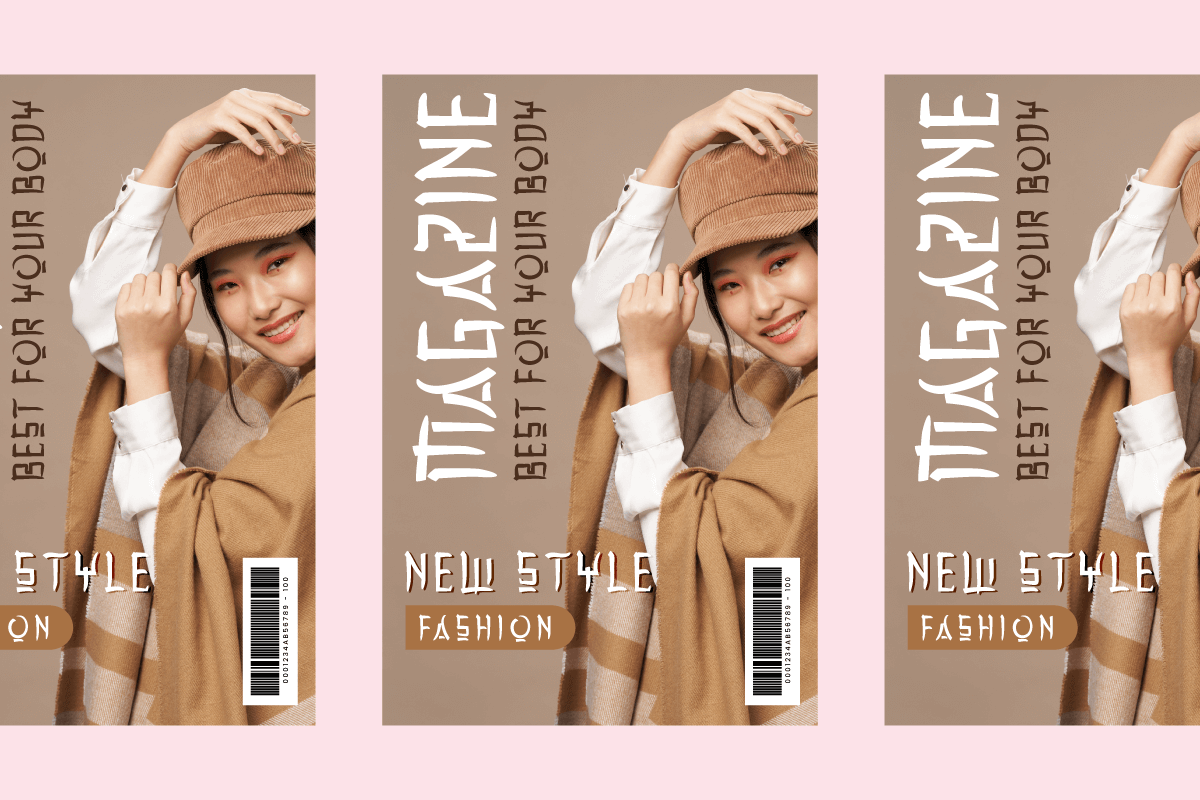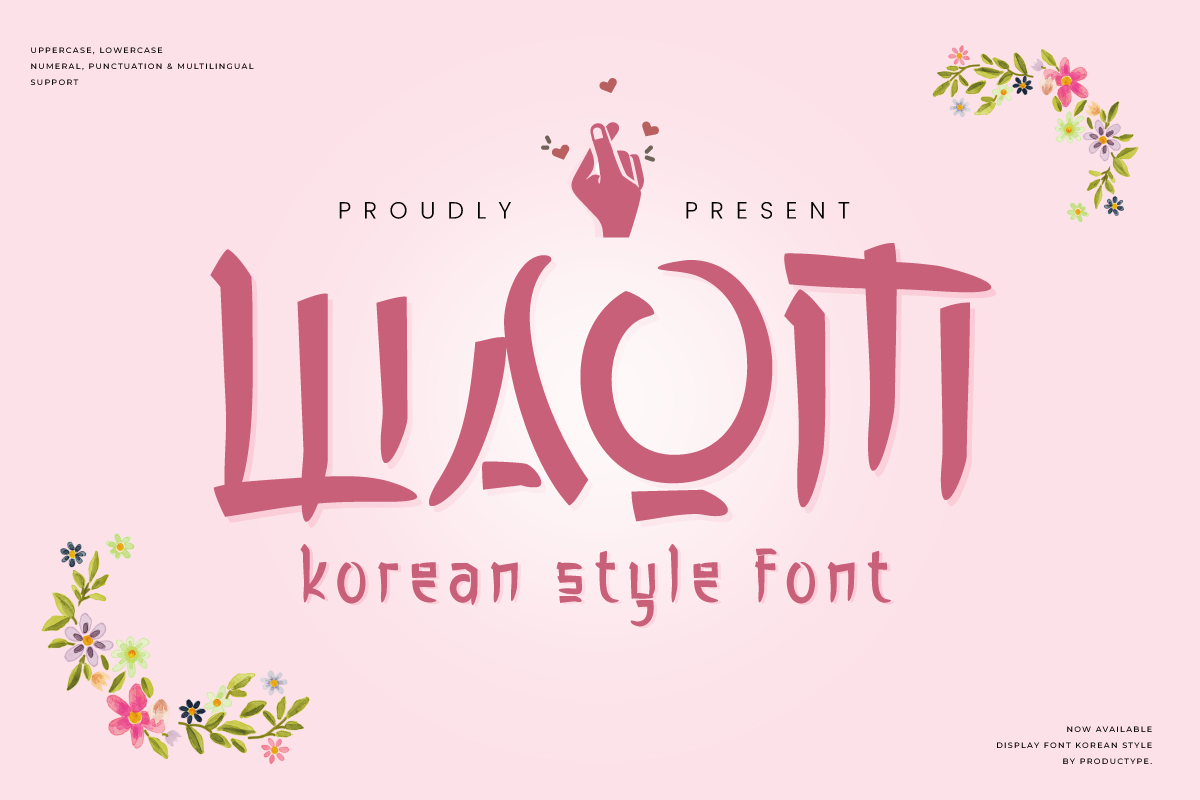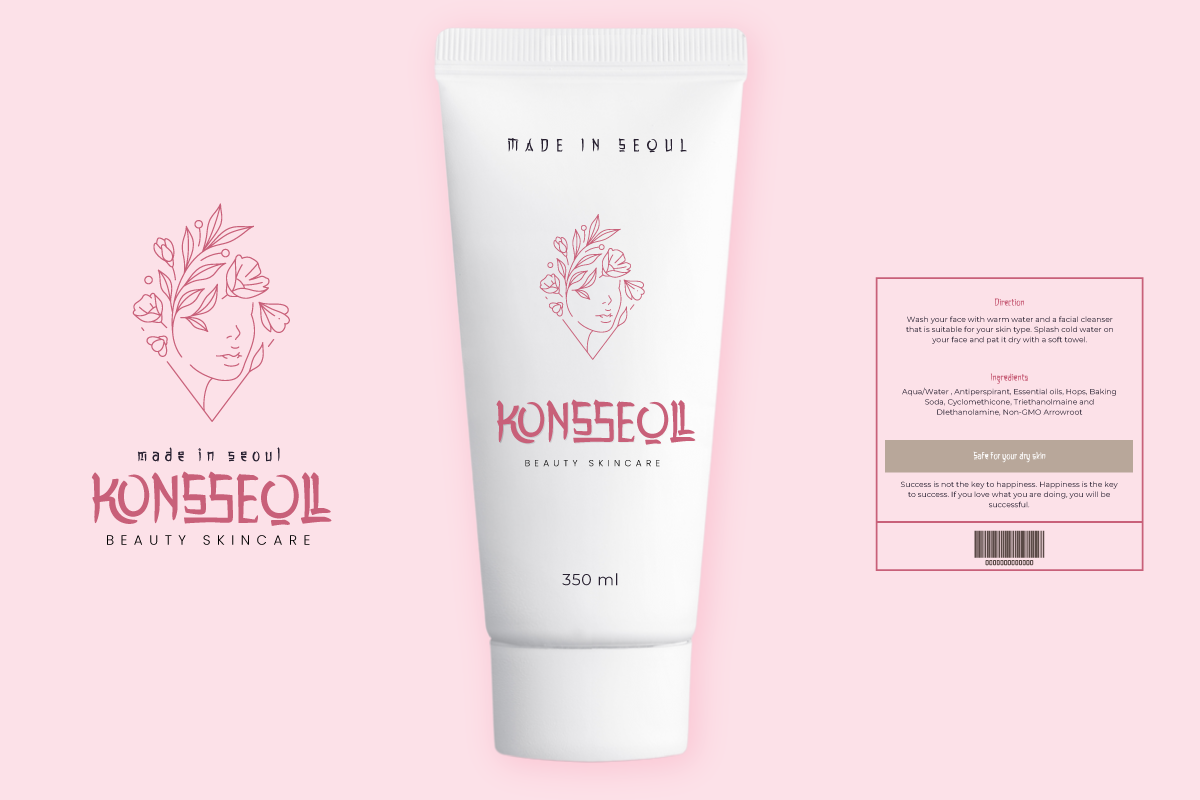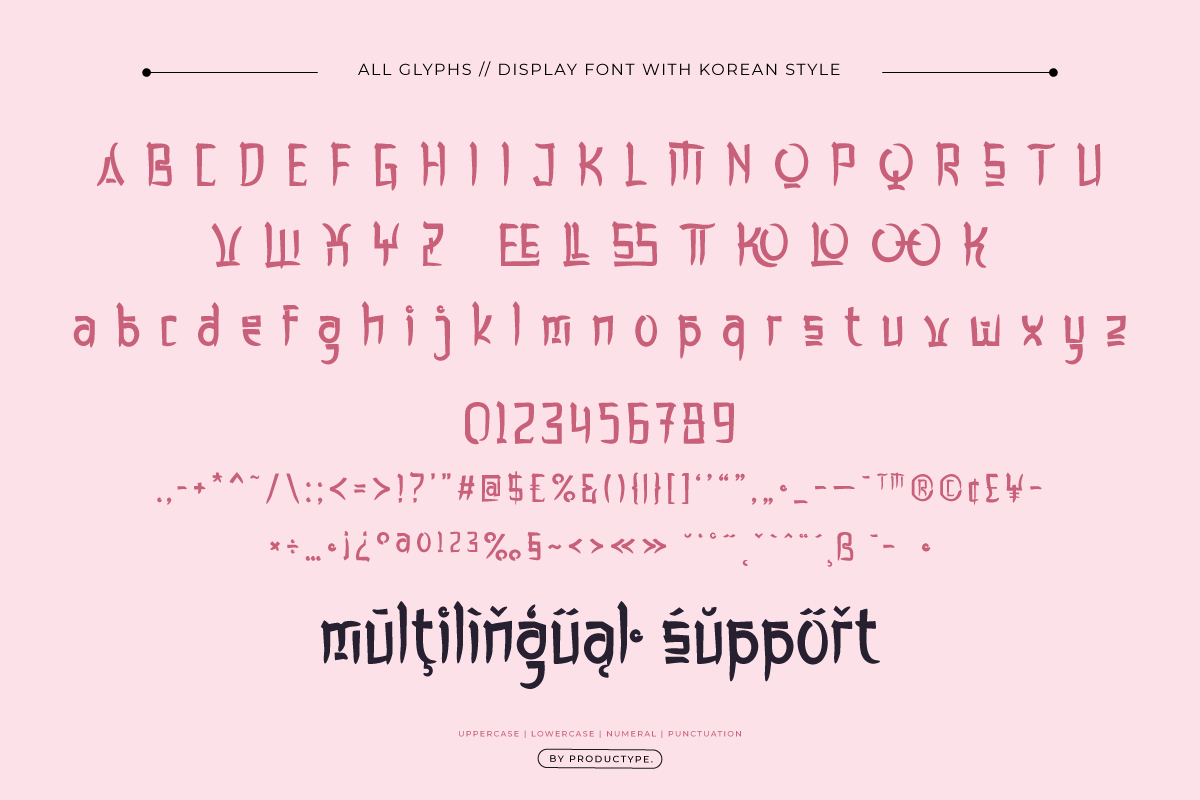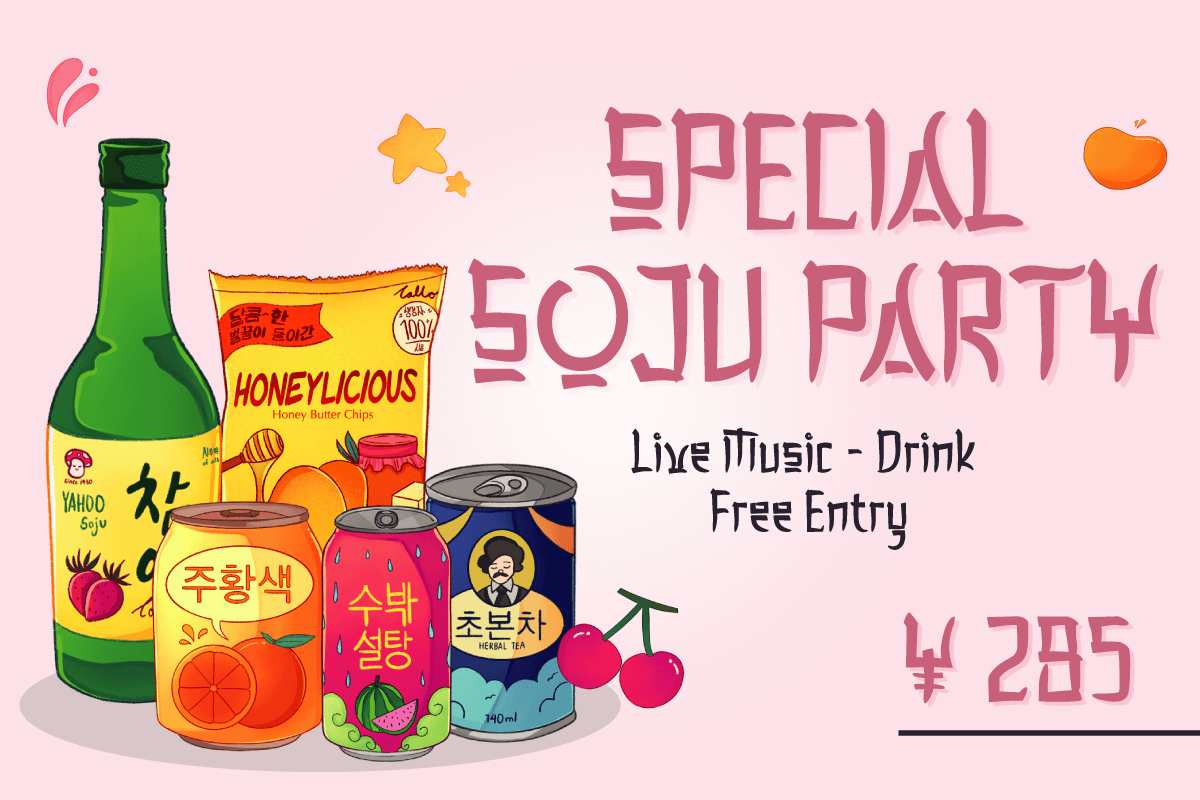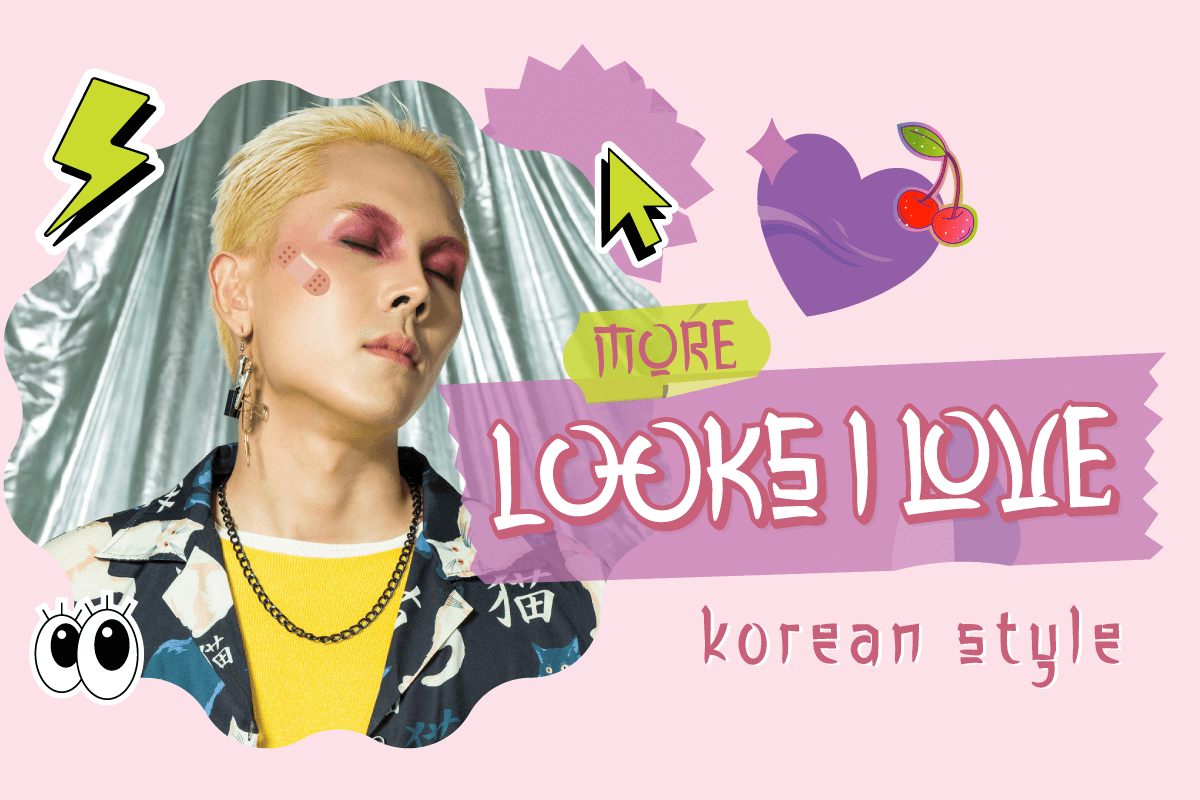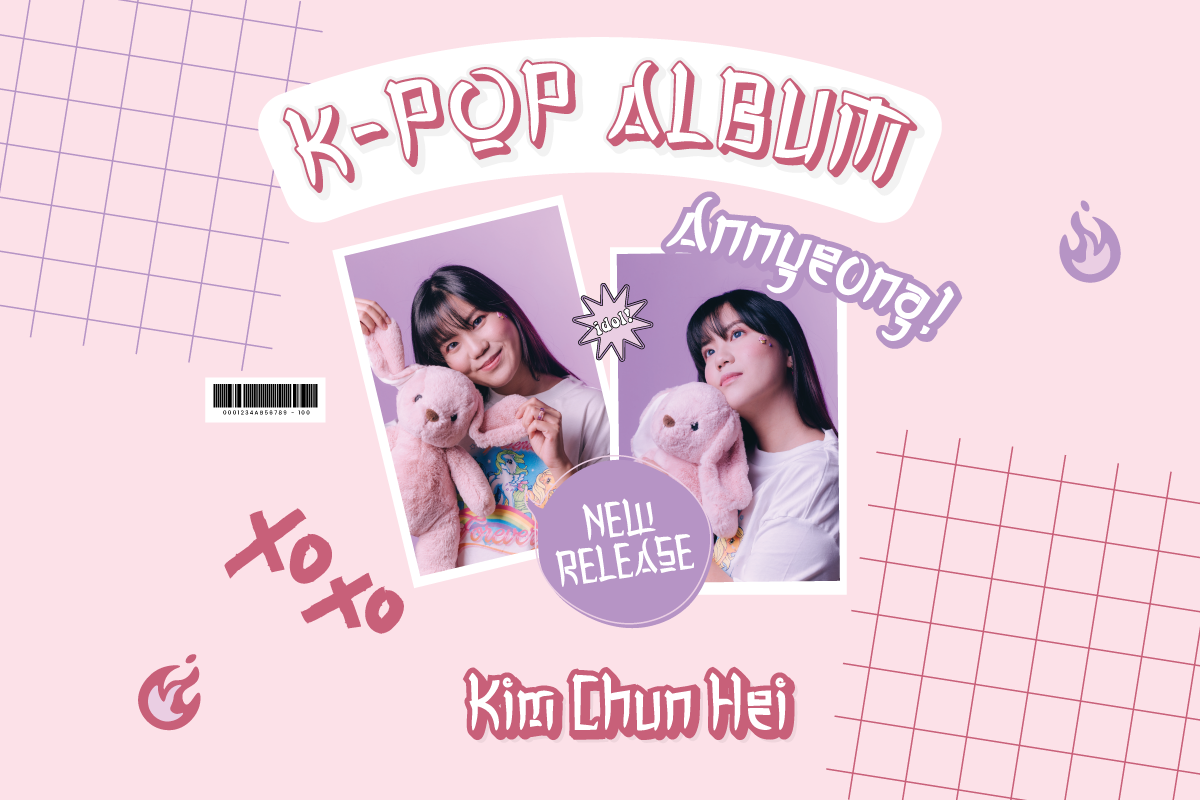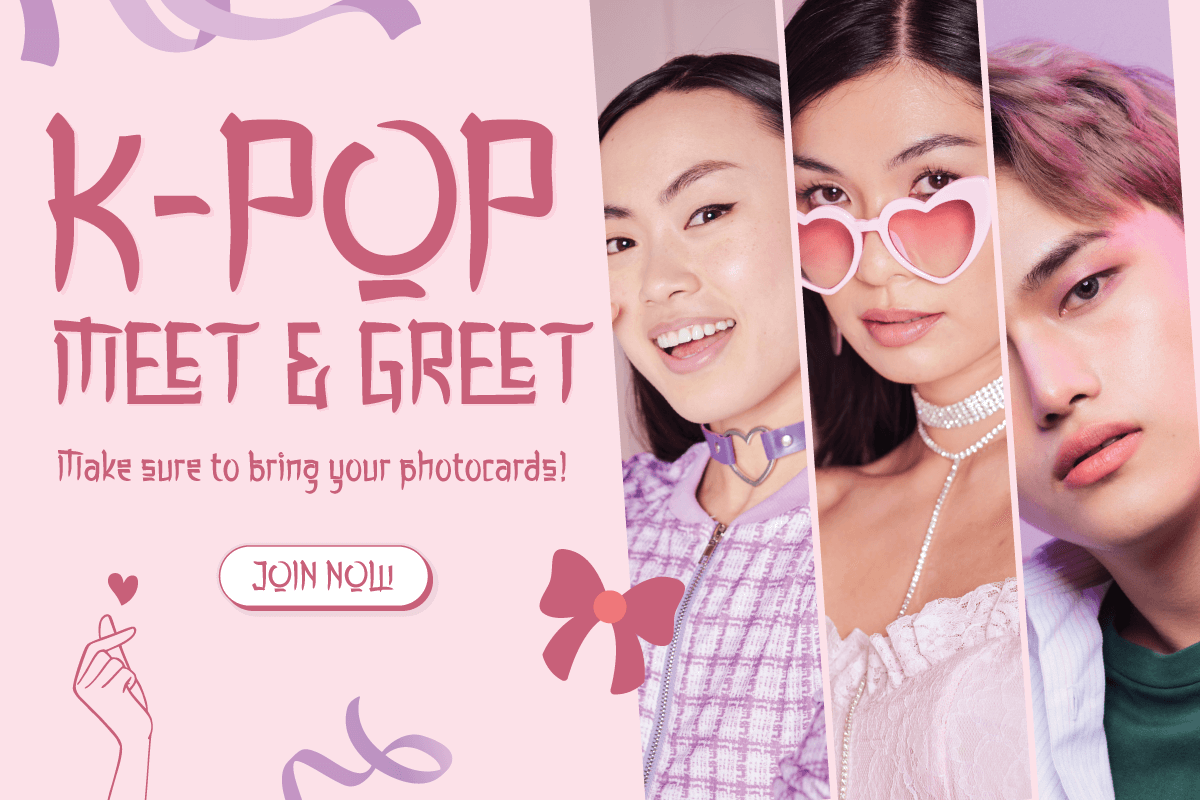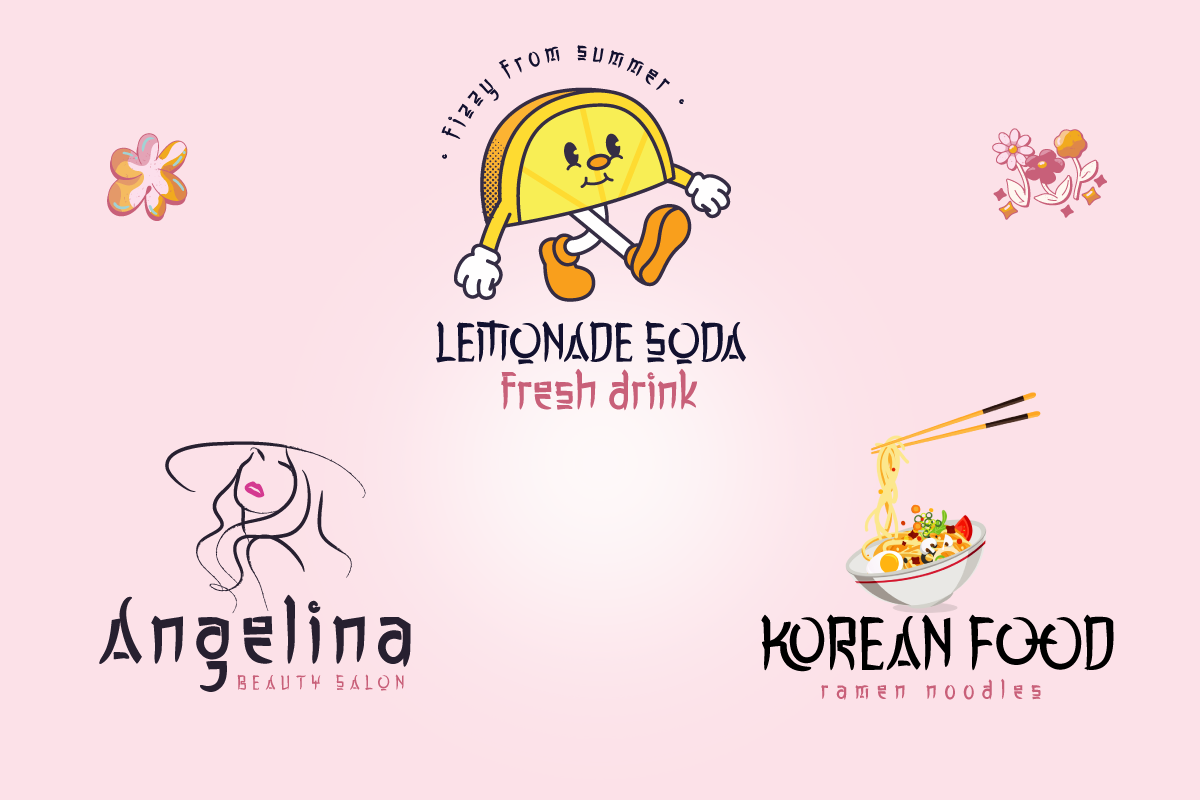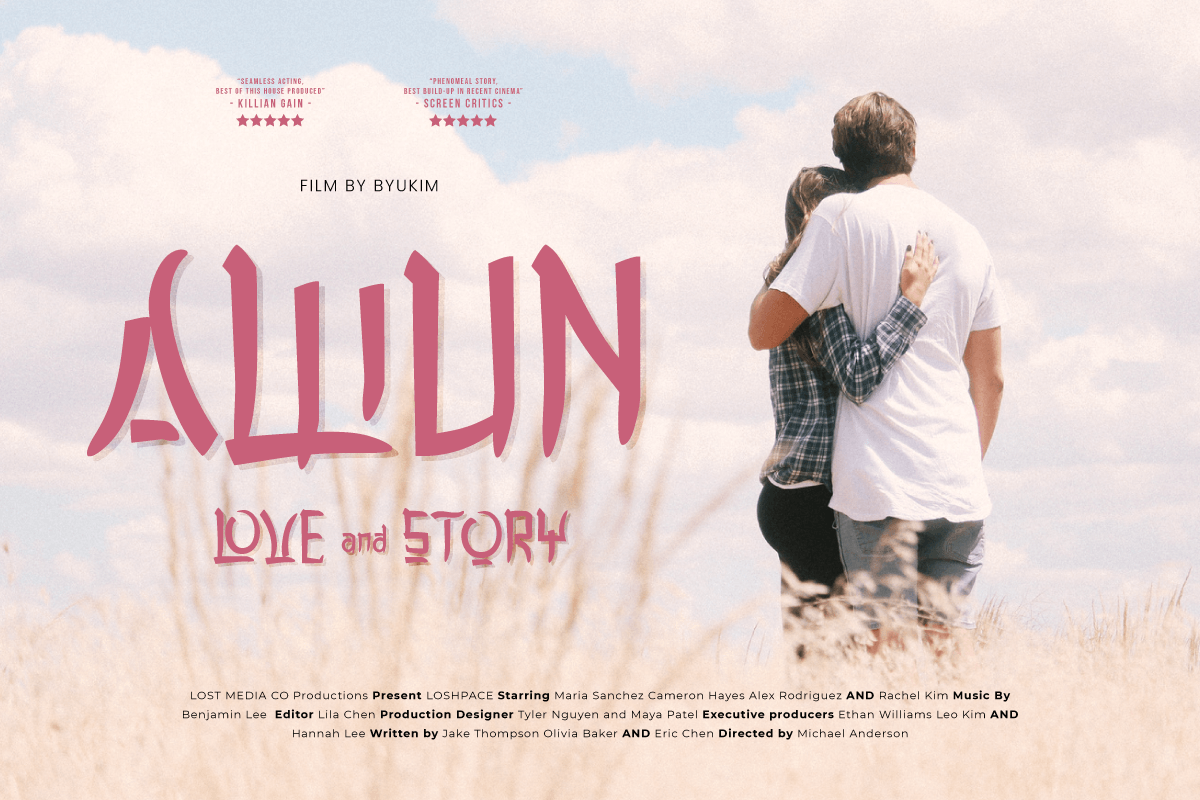
Waom - Korean Style Font
Bring Korean elegance to your designs with Waom, a stunning Korean font with a distinctly Asian touch. With each letter expressing tenderness and beauty, Waom takes you on an enchanting journey through Korea's rich culture.
Waom is the perfect choice for branding projects, logo typography, and special events that want to embrace the beauty of Asia. The classic yet modern design gives a unique and charming touch to each piece.
Let Waom take you on a journey through the wonders of Korean culture. With this font, bring stunning beauty to your designs, making every project a representation of timeless beauty.